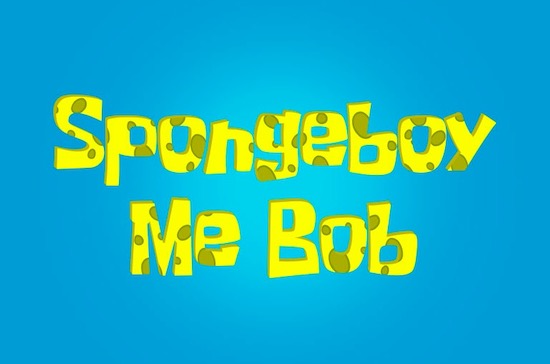
Spongeboy Me Bob Font
Spongeboy Me Bob Font is too much useful for satisfying the designer requirements. Because this font has more than 200 characters which are very dependable, serious, and solid. It features great appealing glimpses along with its natural handwritten layout.
With this Spongeboy Me Bob, the designer’s creations are endless. Feel free to create products for all ages. Especially for the kids, using this lovely cartoon font is a great idea.
This display font is a fun display and cute cartoon typeface. It has a gorgeous style that will elevate your design projects to a higher level.
Here we are introducing the Designers to the Spongeboy Me Bob font. This is a popular cute font as per its very high-grade and precise legibility. EyeOfTheLioness took the charge of creating and sharing this font for the first time. Just similar to its name, it is all about the smile. And having that chubby shape, Spongeboy Me Bob will draw children’s attention in no time. This cartoon font is very perfect for children-oriented products, magazines, credit titles, cartoon movies, games titles, posters, and much more.
Spongeboy Me Bob Cartoon Font